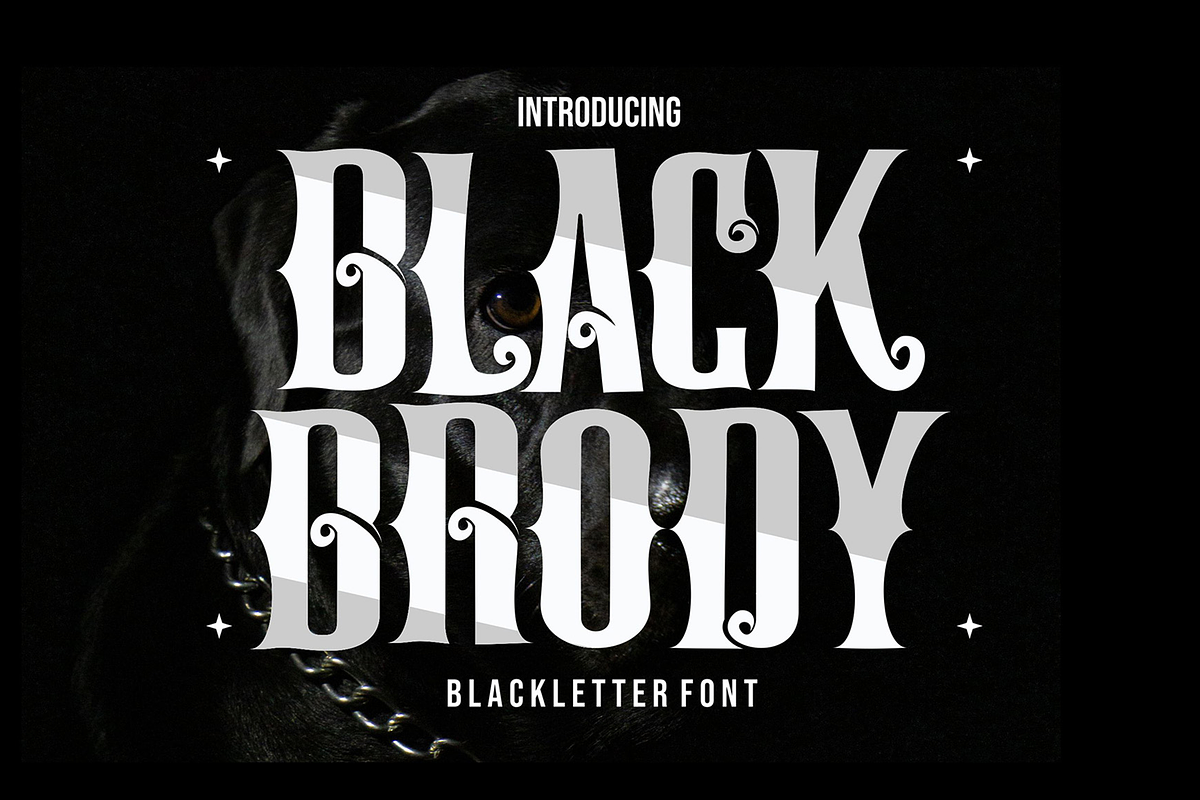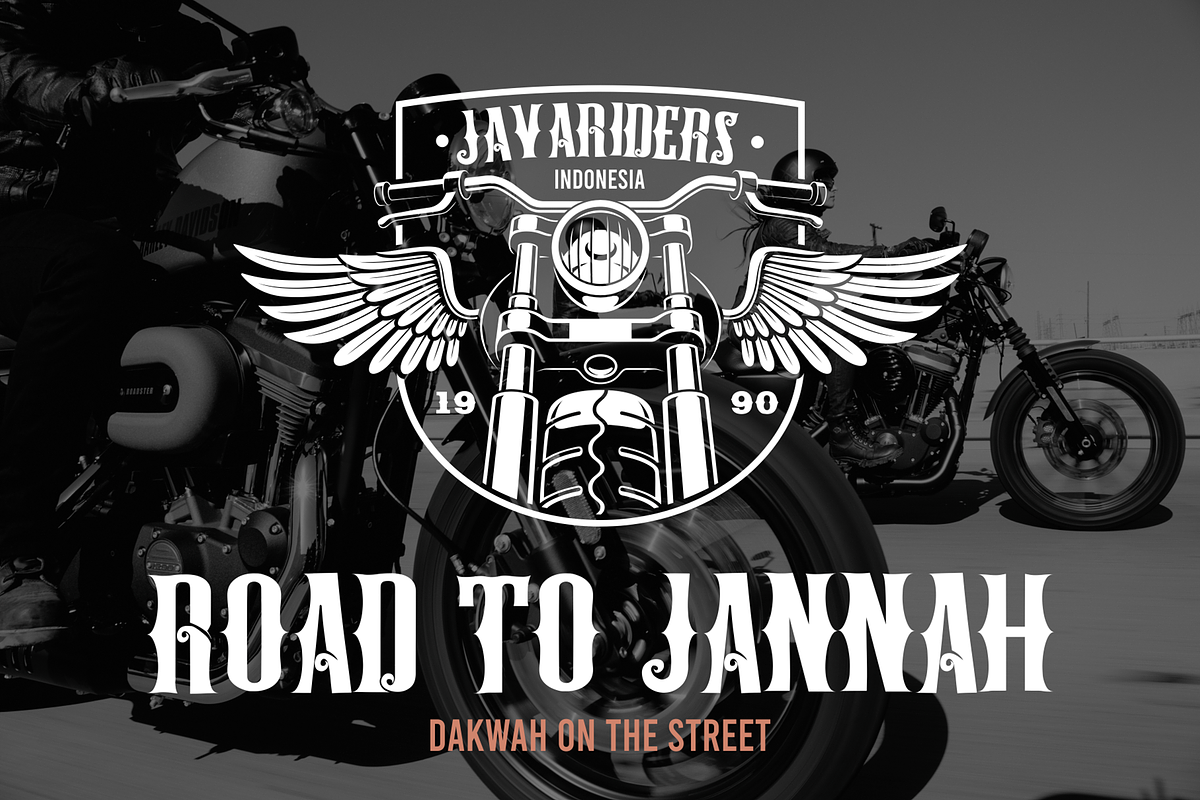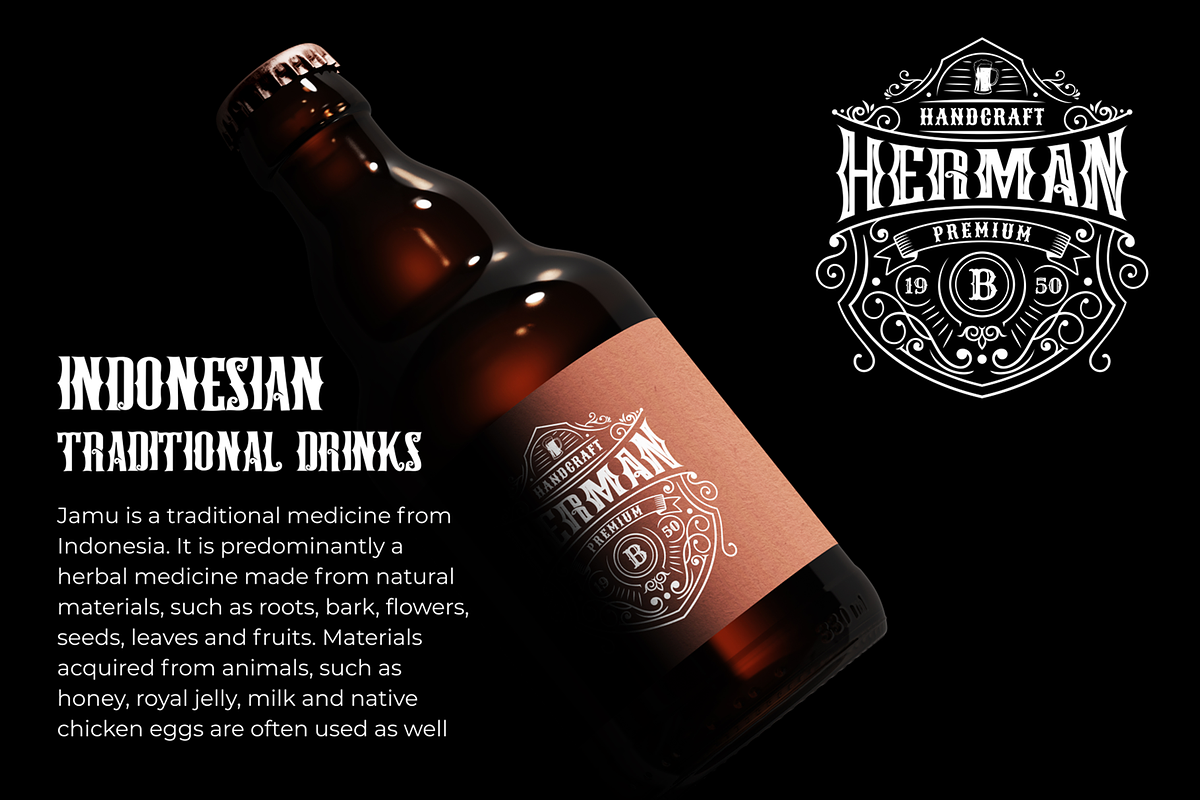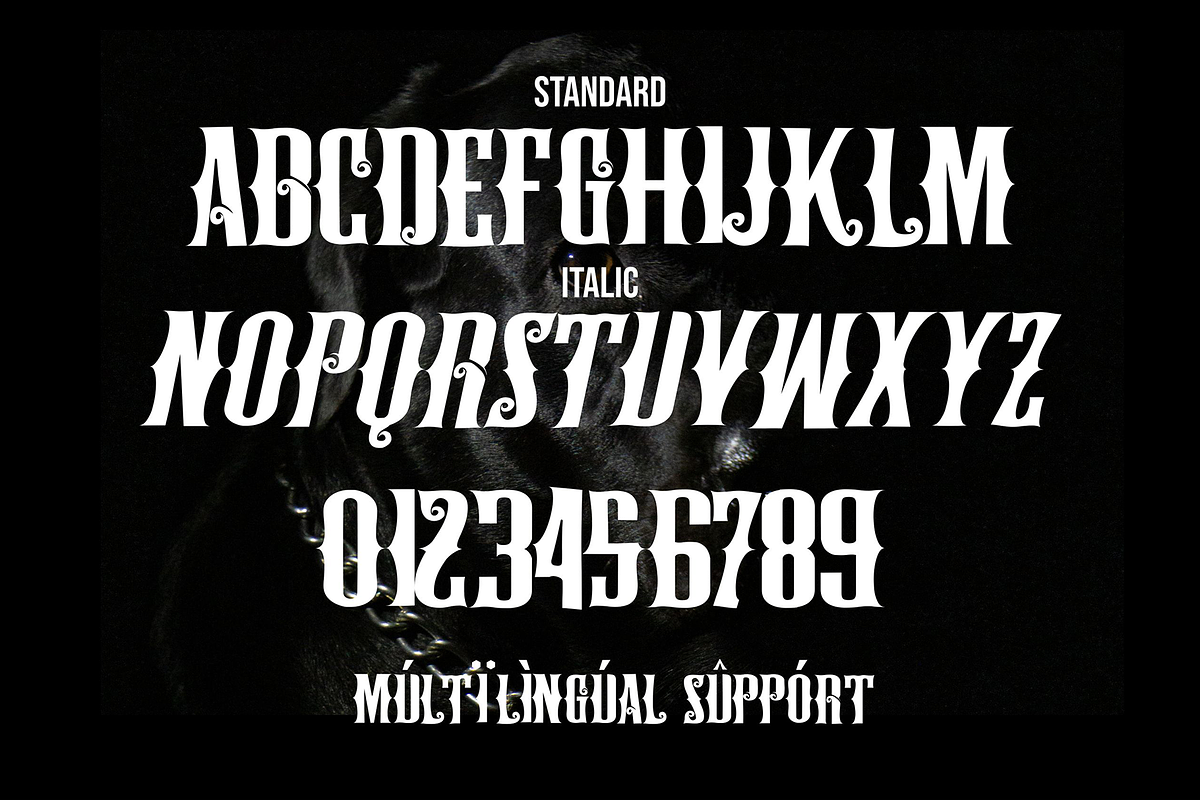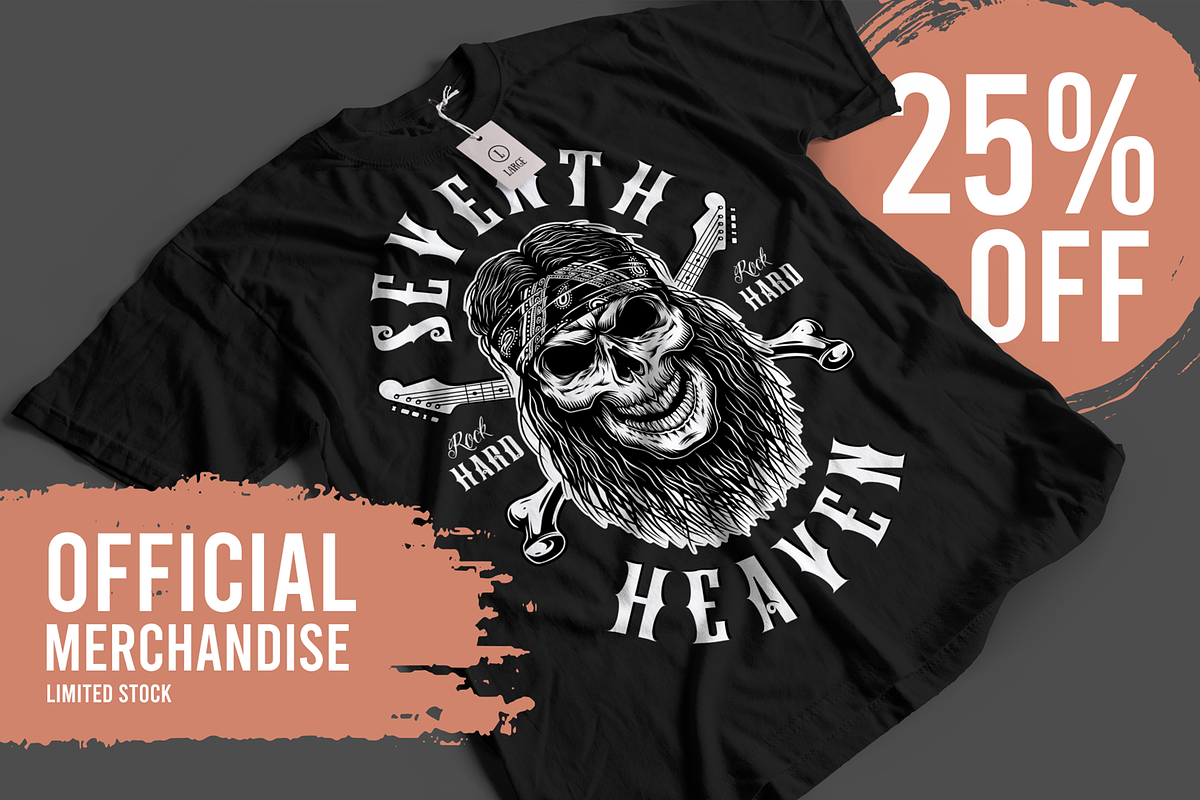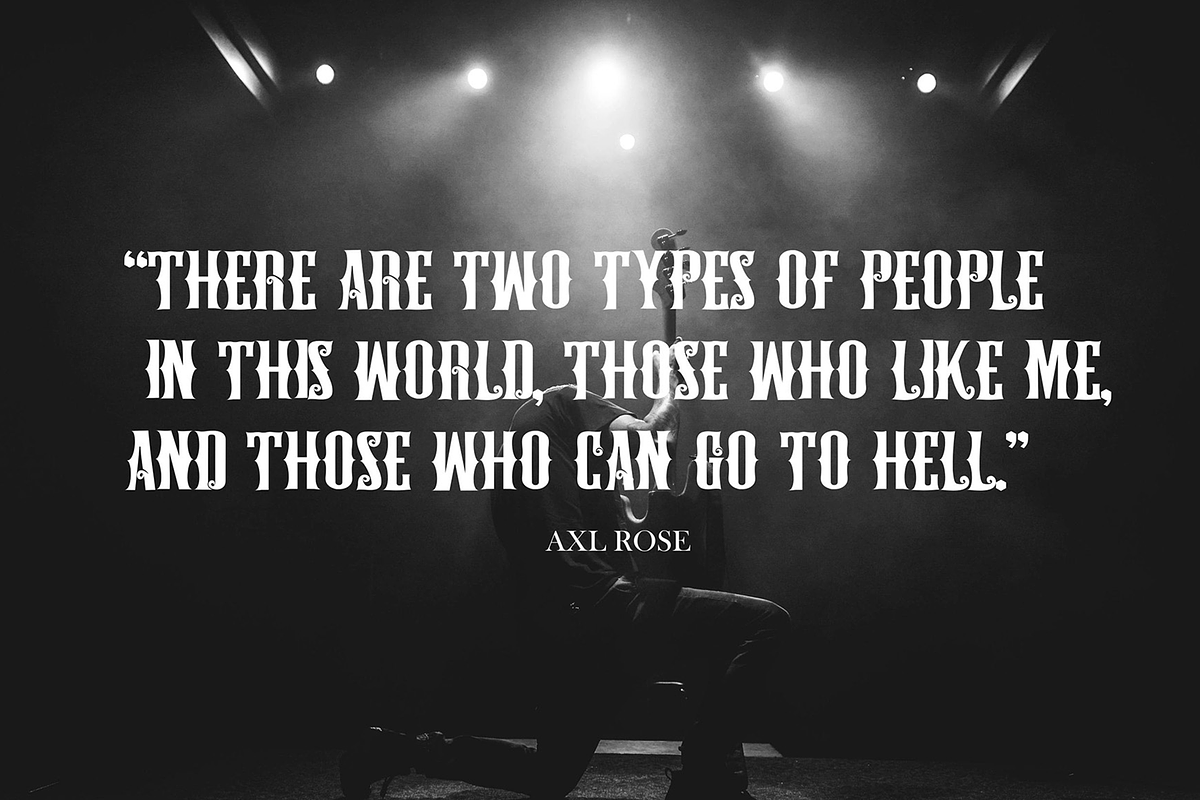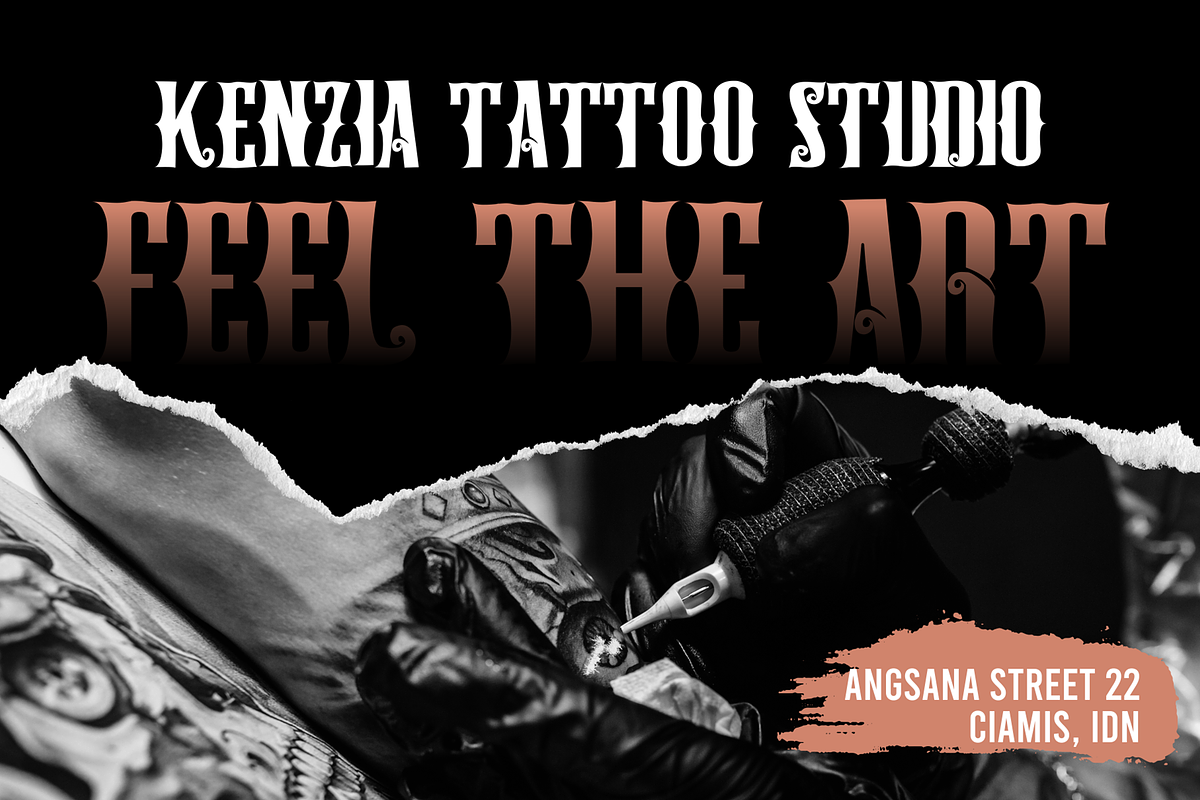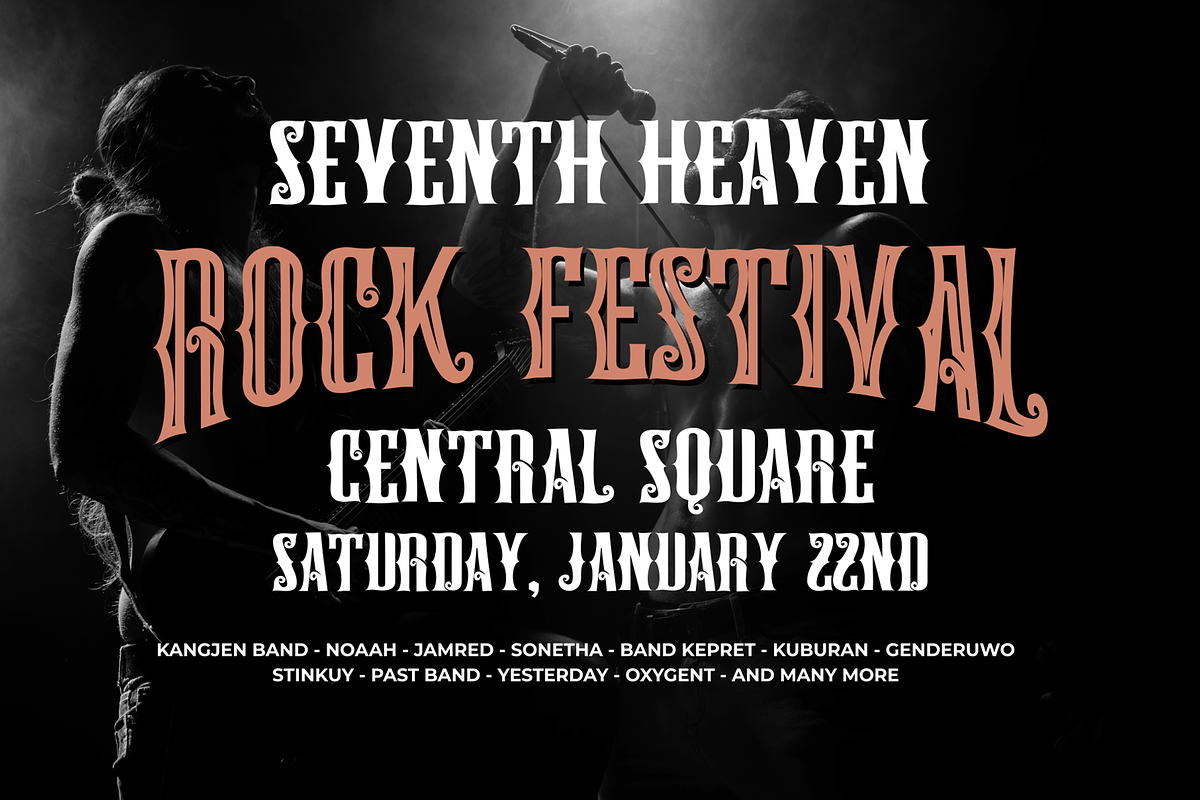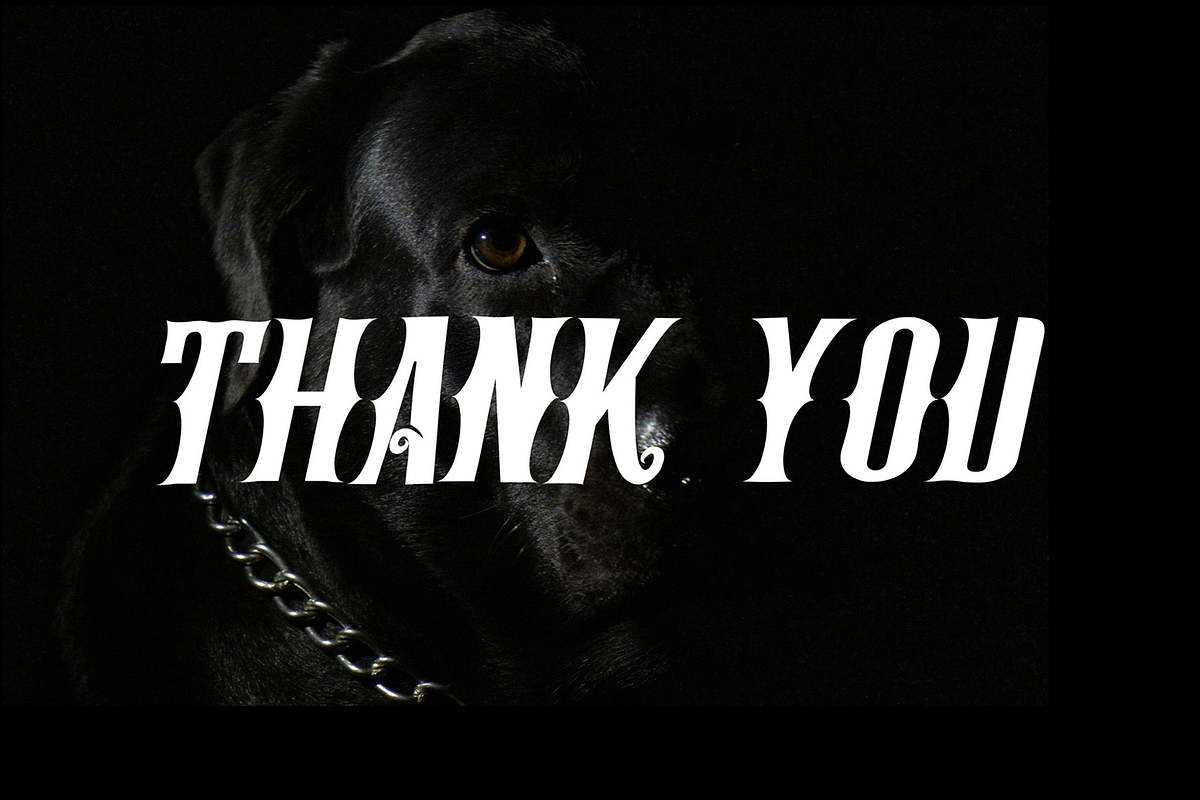
Black Brody - Aesthetic Blackletter
introducing of our new product the name Black Brody font. Black Brody is a blackletter font perfect for tattoo design, logo studio tattoo, shirt design, poster, branding, etc. with two style font, regular and italic style.
- All-caps